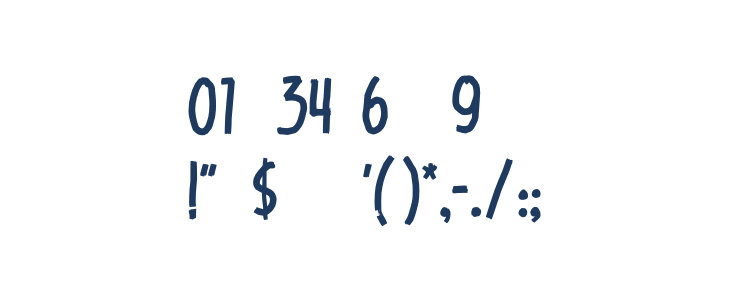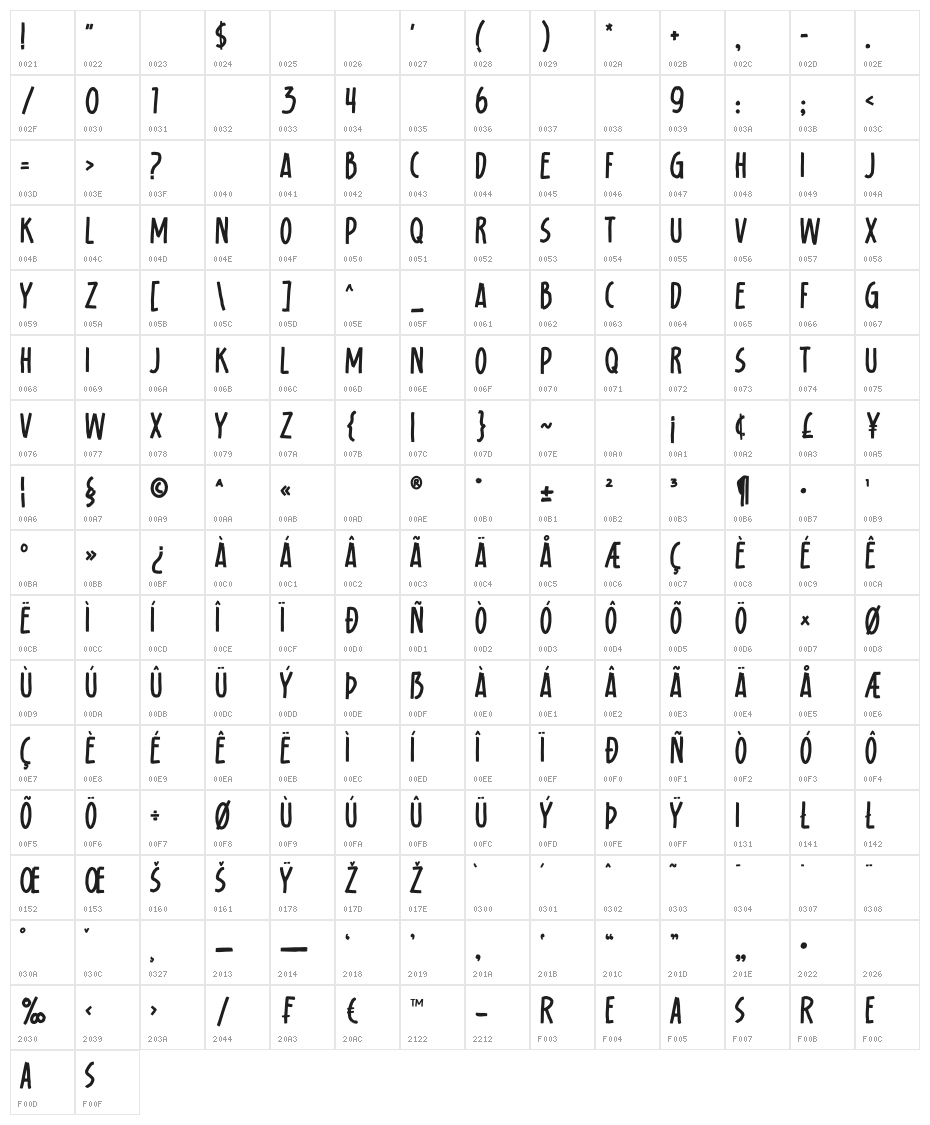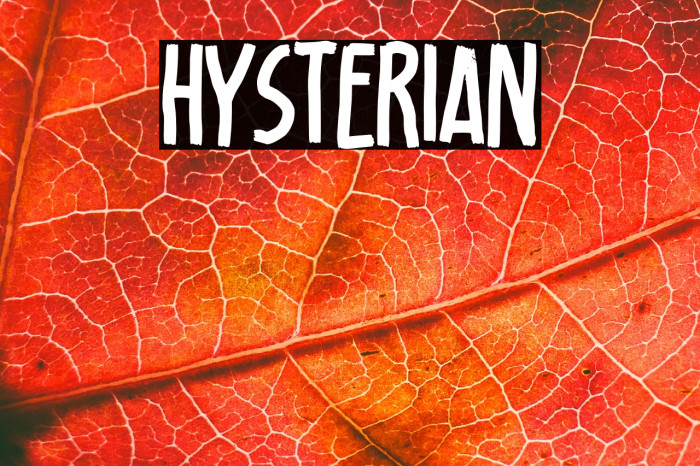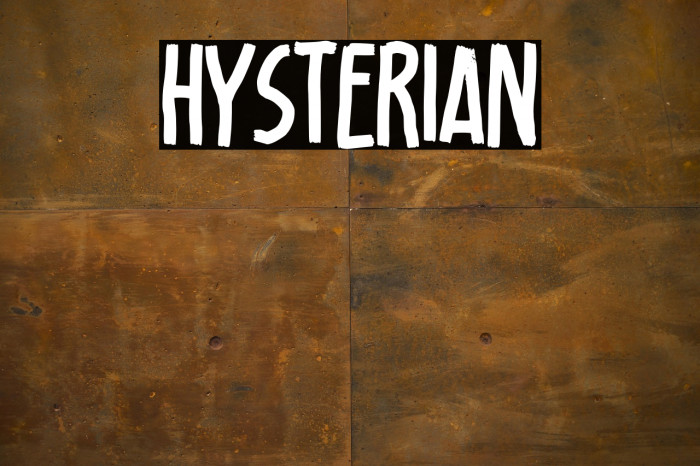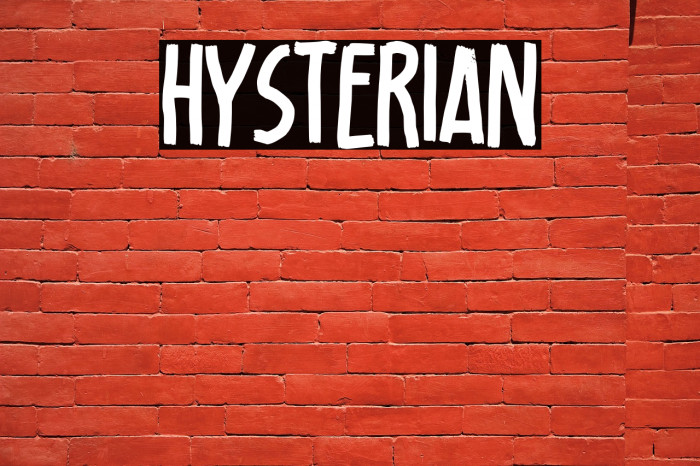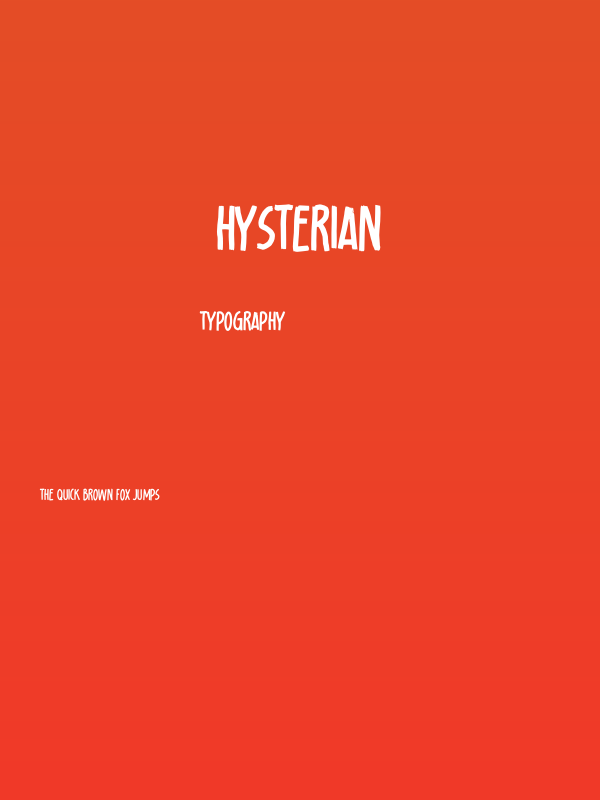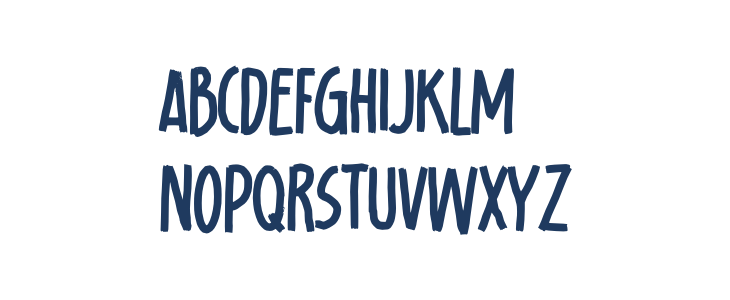
Hysterian Font
Hysterian Description
This font features a bold, hand-drawn style with a playful and energetic appearance. The characters are slightly irregular, giving it a casual and informal feel. The strokes are thick and consistent, with a slight slant that adds to its dynamic look. The uppercase and lowercase letters maintain a cohesive style, while the numbers and special characters complement the overall design. This font is ideal for projects that require a fun and lively touch, such as posters, invitations, or branding for creative ventures.
| Proposed Projects | Ideal for posters, invitations, creative branding, and any project needing a lively touch. |